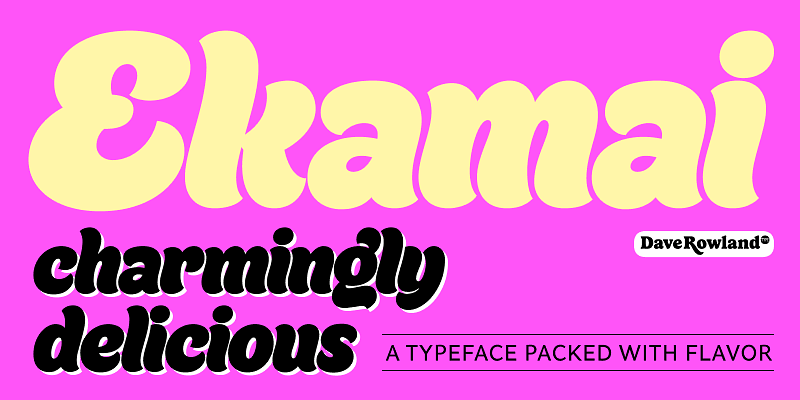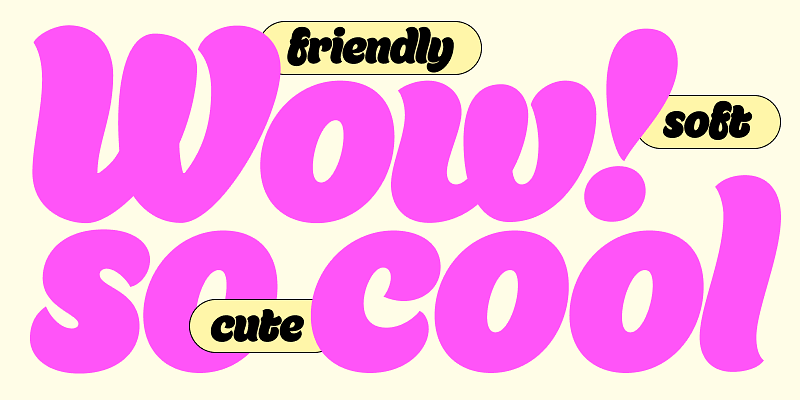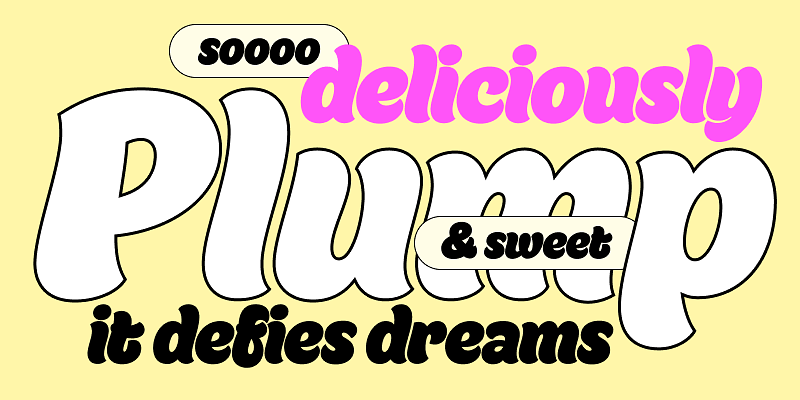
This is Ekamai, a deliciously plump, tight-but-not-touching script. It is named after a district of Bangkok where Dave once lived. With its lovingly rendered curves and just the right amount of cuteness, Ekamai is perfect for food packaging (of the sweeter variety, probably!), logos, magazine headlines, branding, and the like. The overall feel is friendly and soft without being overtly saccharine. Ekamai pairs well with Quinella, a slightly older sibling, in dramatic and exciting ways, too!